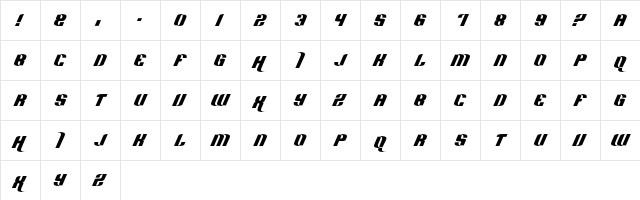
Hard Sports Regular
Design Context for Hard Sports Typeface
Hard Sports has the bold swagger of sports branding: strong, assertive letterforms designed to dominate headlines and jerseys alike.
A natural choice for gym brands, fantasy sports, jersey lettering, and action-driven headlines.
Font Pairing: Use alongside a condensed or geometric sans for supporting copy — keep the pairing bold, functional, and free of ornament.
Pro Tip: Use Hard Sports in all-caps headlines where its athletic energy can fully express itself. Pair with a solid, simple sans for supporting text.